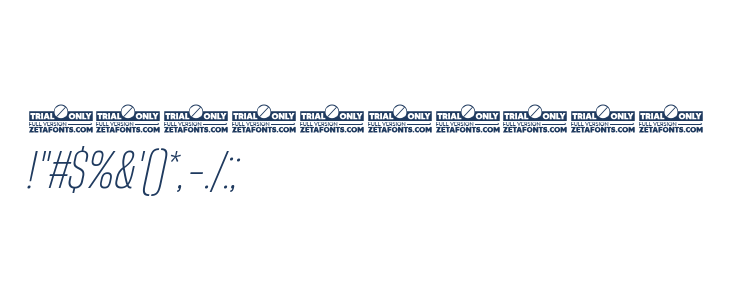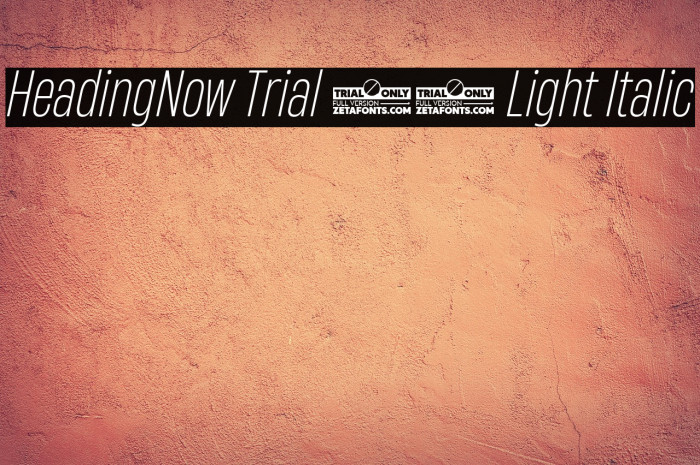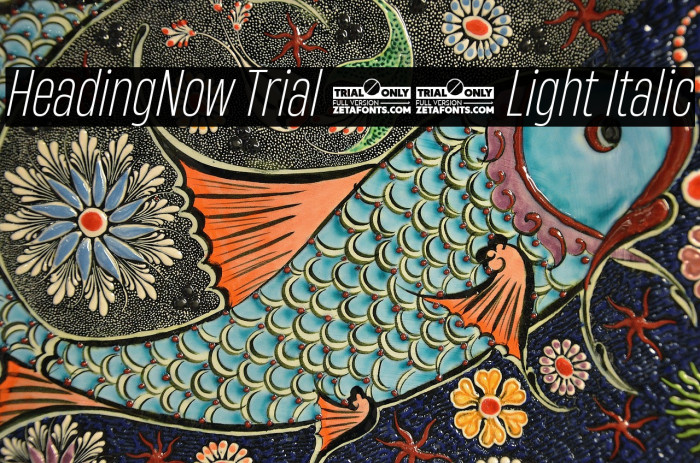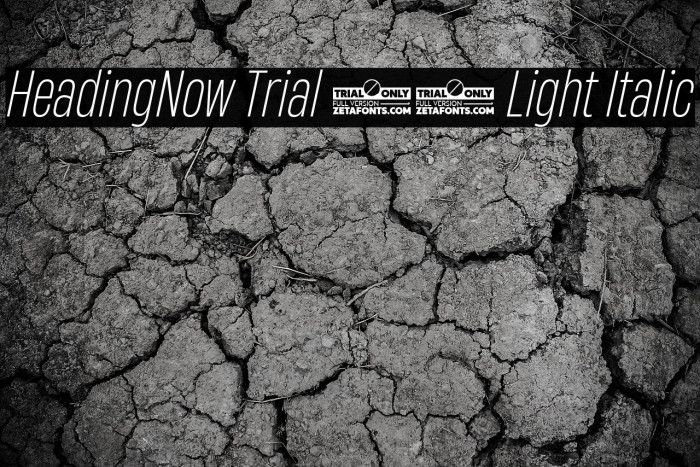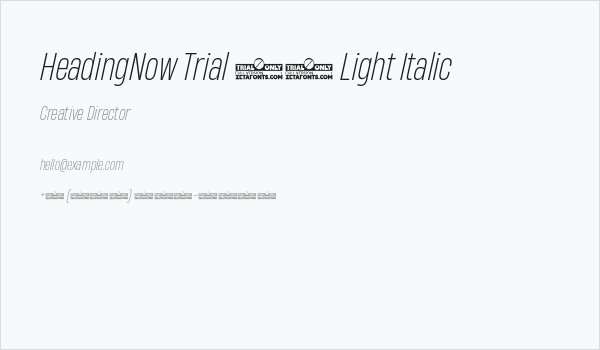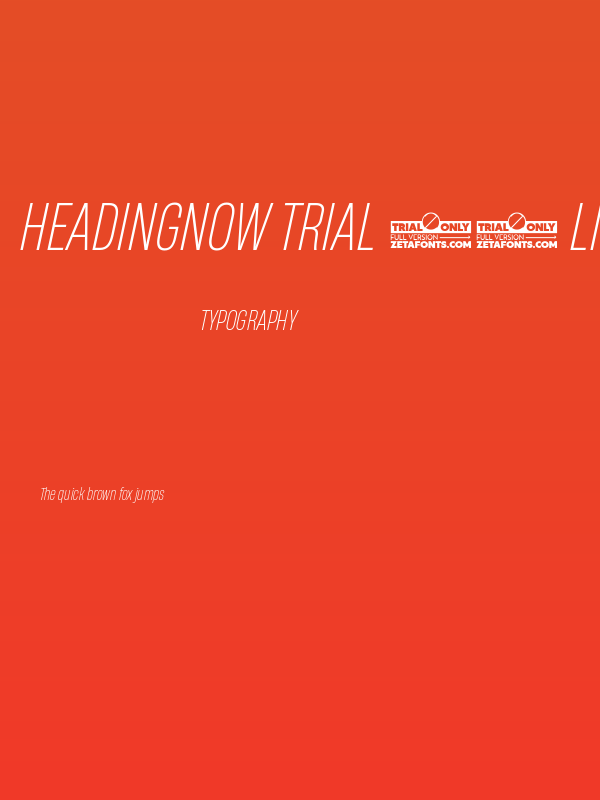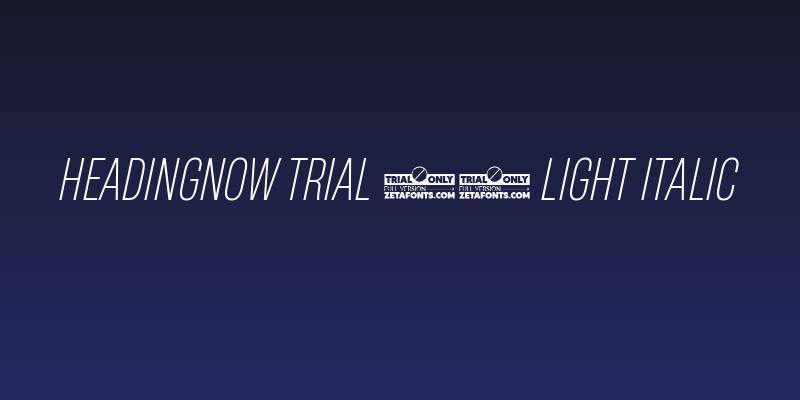
HeadingNow Trial 42 Light Italic Font
HeadingNow Trial 42 Light Italic Description
This font features a sleek, modern design with a light weight and italic style. The characters are elongated and slightly condensed, giving a sophisticated and elegant appearance. The strokes are consistent in thickness, contributing to a clean and streamlined look. The font maintains a high level of legibility, making it suitable for various applications. Its italic nature adds a dynamic and fluid touch, enhancing its visual appeal. The spacing between characters is normal, ensuring readability while maintaining a stylish presentation.